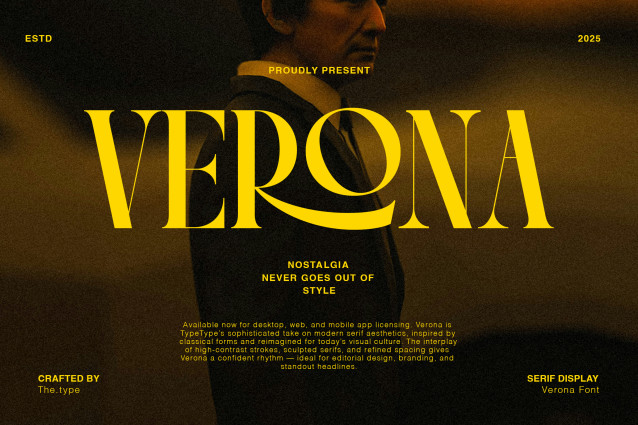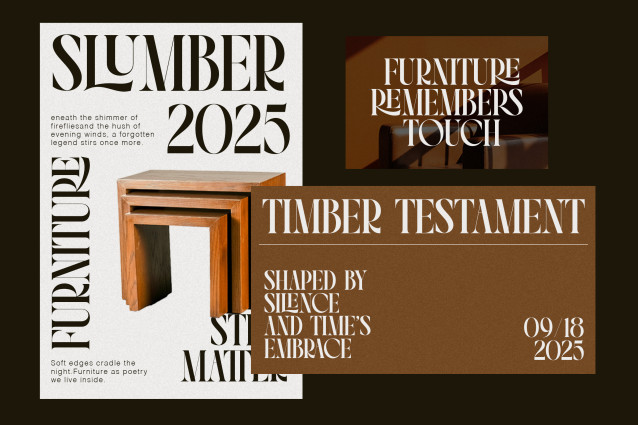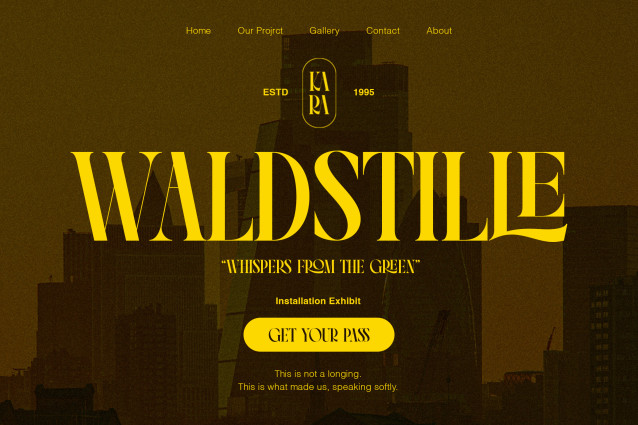
Verona Serif Font
Verona Serif Font is a classic Serif font. This font can look more like a classic serif, perfect for text. Likewise, it can be more expressive, playful and modern with alternate letters and alternate ligatures, try playing around with them and you will get uniqueness in your project.